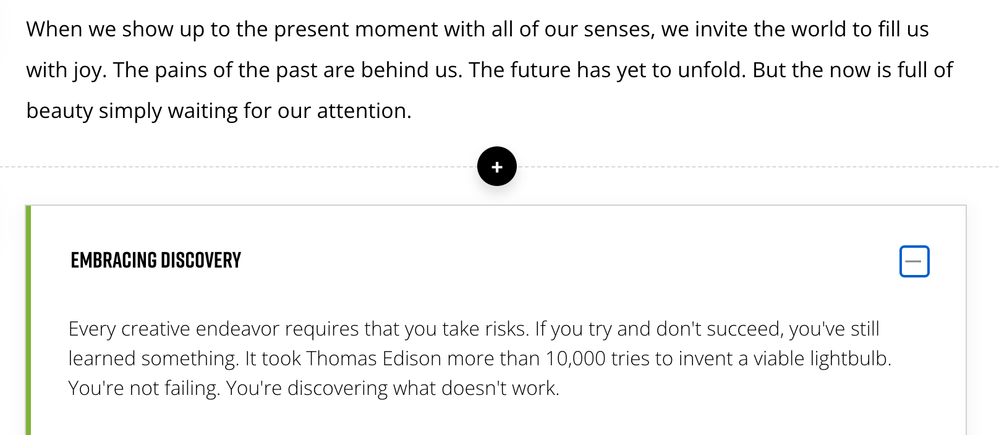
Why font weight appears different from normal text vs content inside interaction block in Rise
In Rise, noticed that the font weight on the normal paragraph appears different from the ones inside interaction blocks such as Accordion, Flipcards, etc.
I find that it can be a challenge for readability, because the font weight inside the interaction block is so thin.
Why is it designed this way? Does anyone know if there's hack to make them look normal?
This is Open Sans font, I have installed the Regular weight only.
I think my concern was more for readability. I can't remember on top of my head how it looks like for other fonts or typeface. But when it's too thin, it's a bit more difficult to read.
I'm encountering the same issue. The contrast is not enough, which poses a huge challenge for readability.
The question of why the font used by the interactive blocks appears thinner might be due to a design choice to distinguish the smaller area of the interactive blocks compared to the text blocks. This is a good question for our product team, and I opened a support case on your behalf to get you the answers you need! Please be on the lookout for an email from our support team regarding your inquiry.